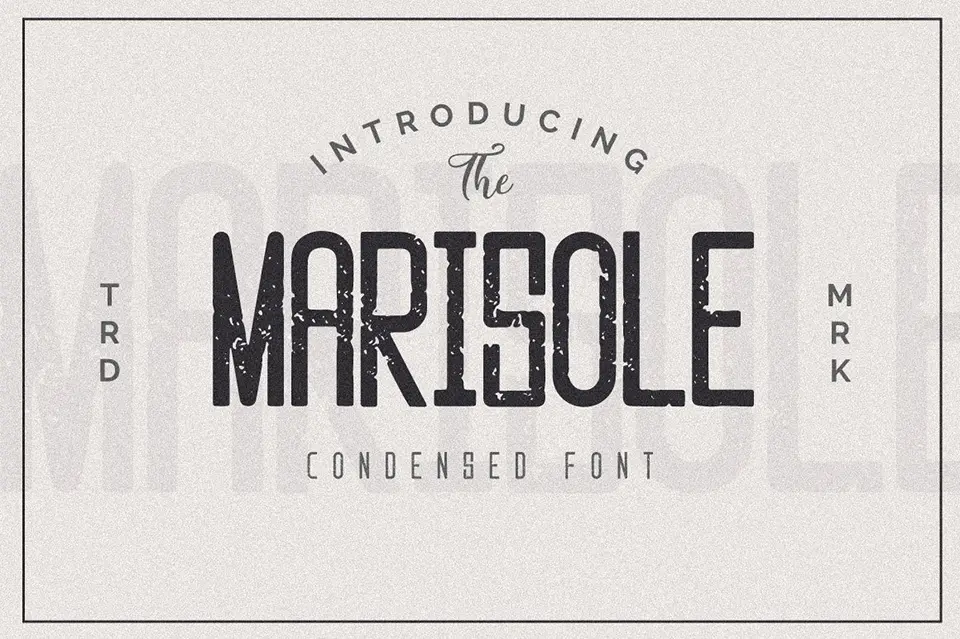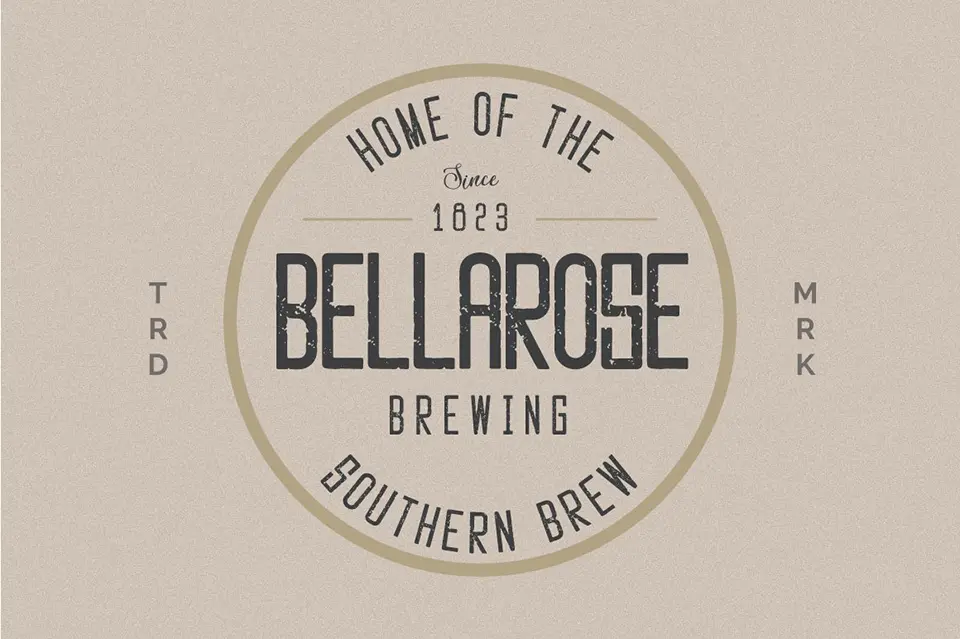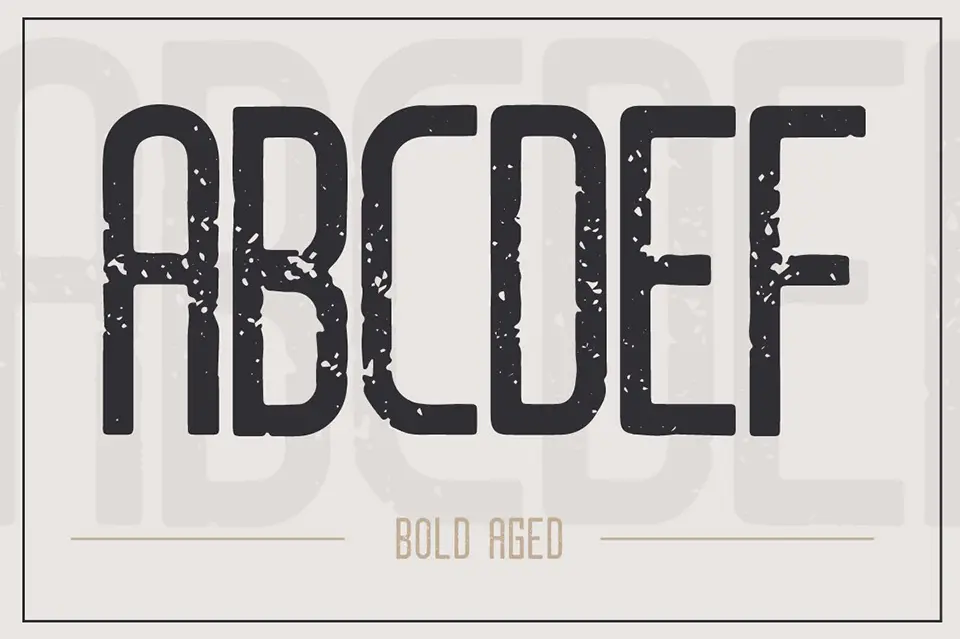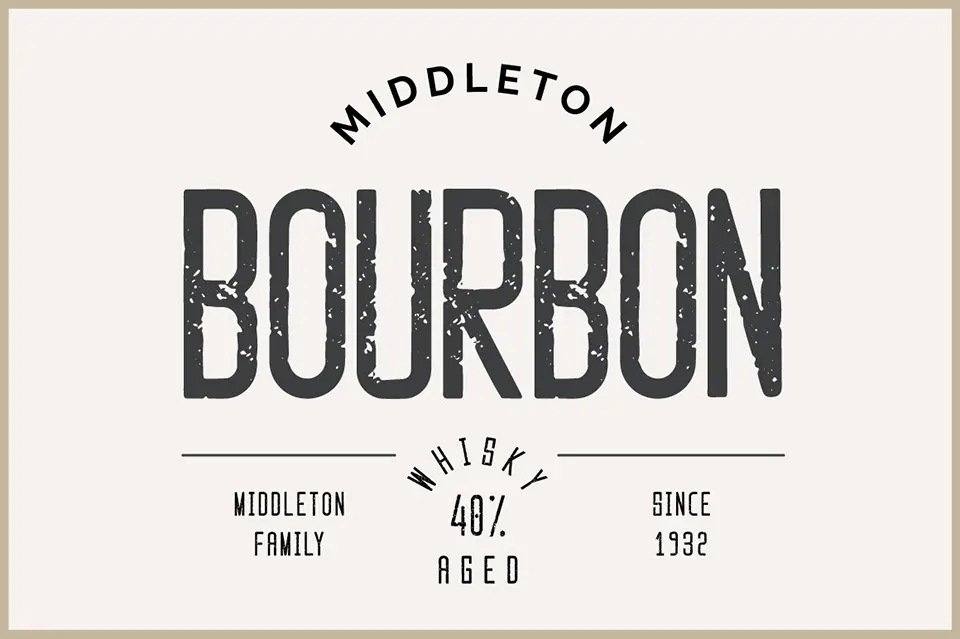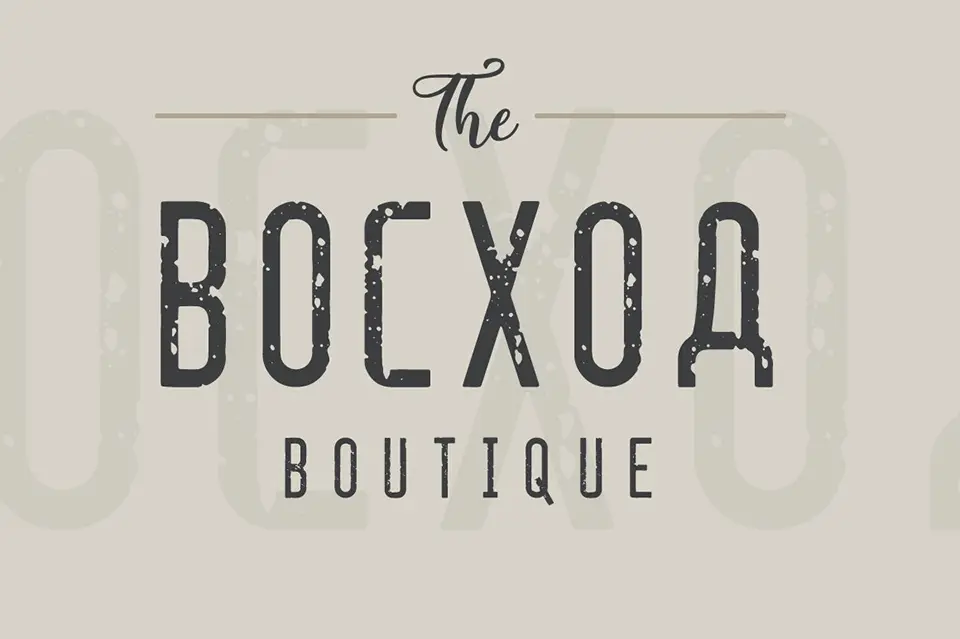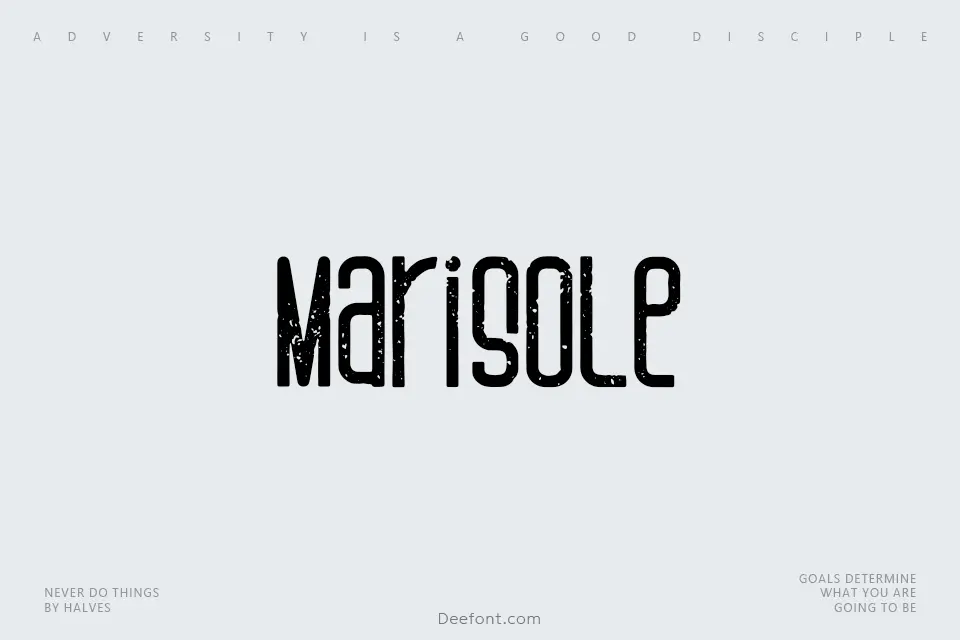
Marisole Font
Marisole Condensed Font is a rugged and textured sans-serif typeface designed by Digital Hustler. Its condensed structure and unique distressed texture give it a bold and vintage appeal, making it ideal for projects that demand character and authenticity. Perfect for liquor labels, cosmetic packaging, posters, and branding, Marisole adds a touch of industrial charm to any design. The font supports multilingual characters, ensuring versatility for global applications. With its eye-catching style and compact design, Marisole Condensed Font is an excellent choice for designers seeking to create impactful visuals in both digital and print formats.